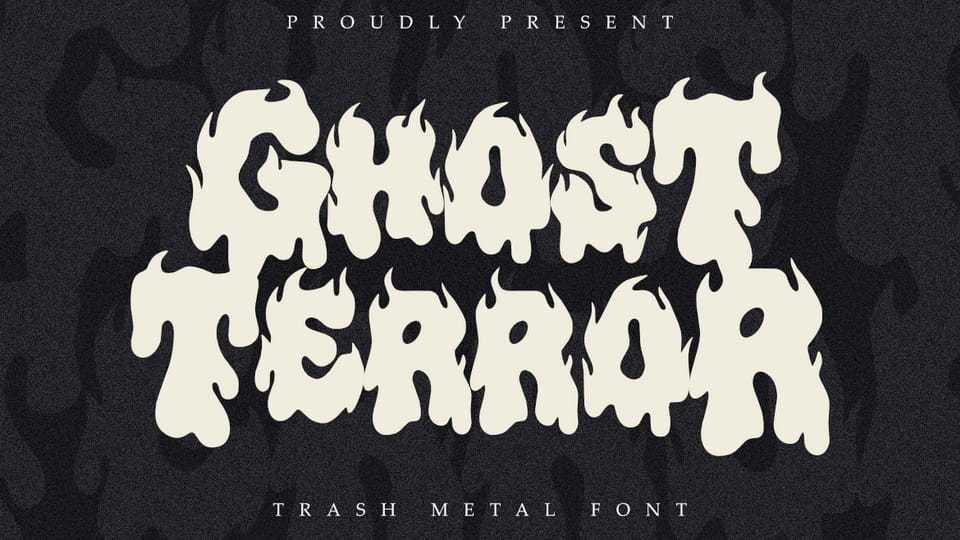
Download Ghost Terror font, a bold and aggressive trash metal typeface with a melting, flame-like character that brings a strong dark atmosphere to your design.